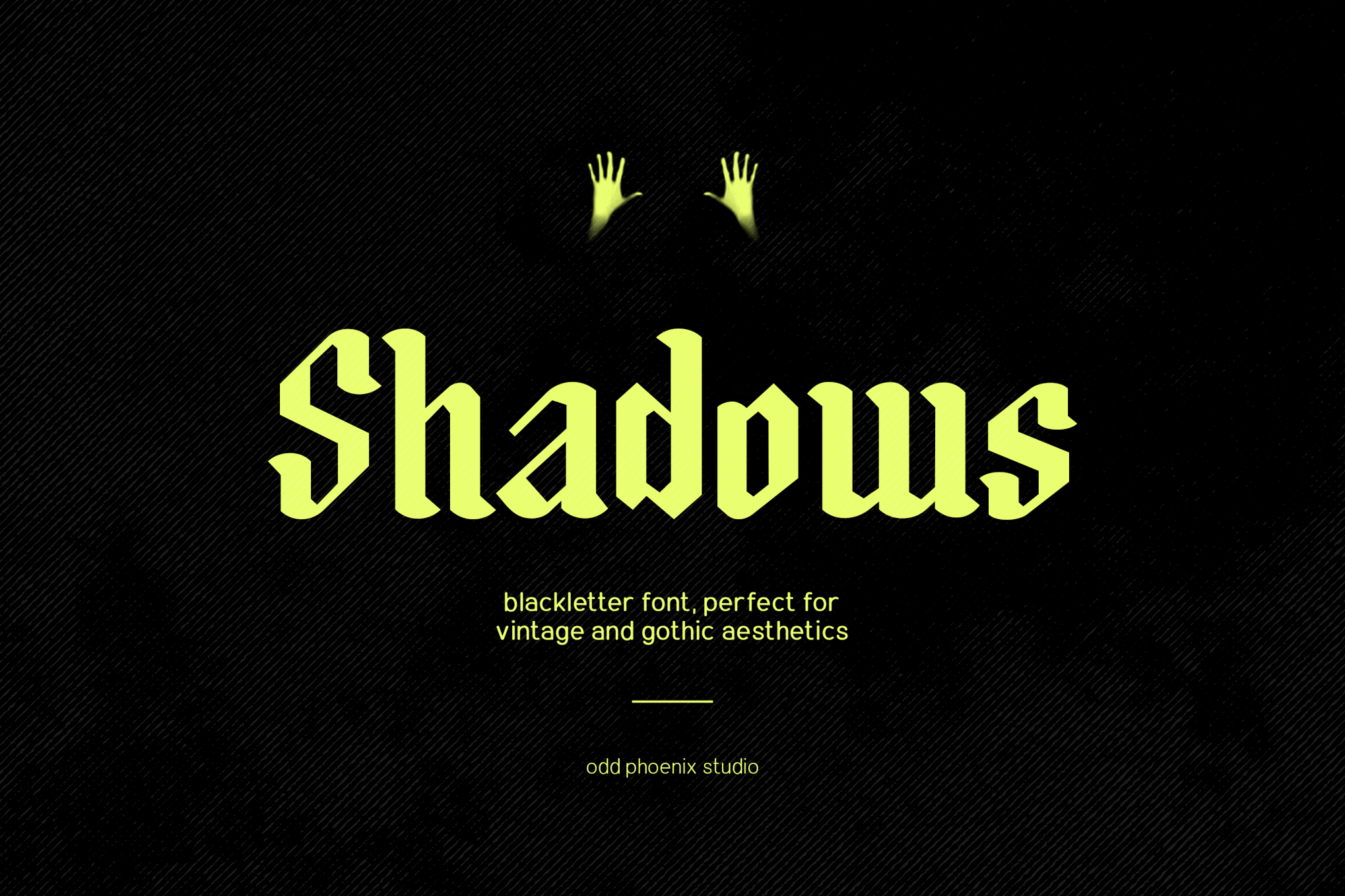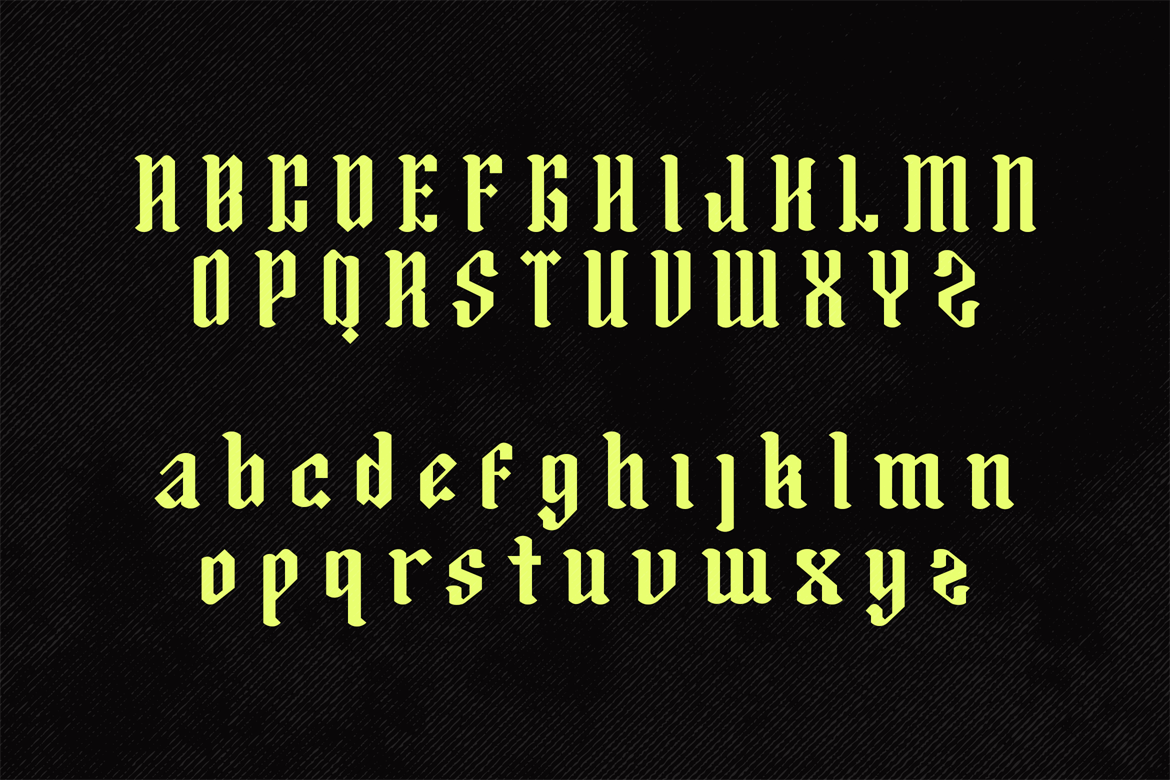
Shadows – Vintage Gothic Blackletter Typeface Font is a versatile typeface ideal for various projects, including Serif, logos, branding, posters, blog headers, advertisements. The free version includes a full set of uppercase and lowercase letters, available in OTF, TTF, WOFF format.
Shadows – Vintage Gothic Blackletter Typeface Font